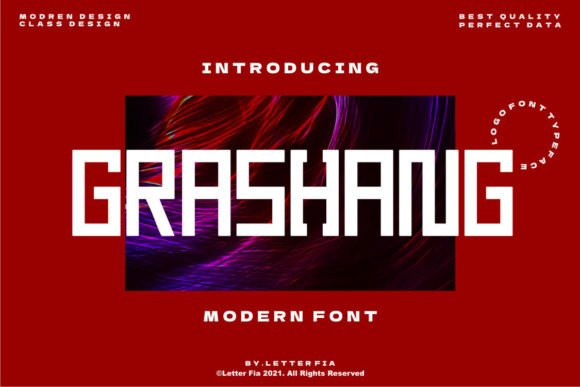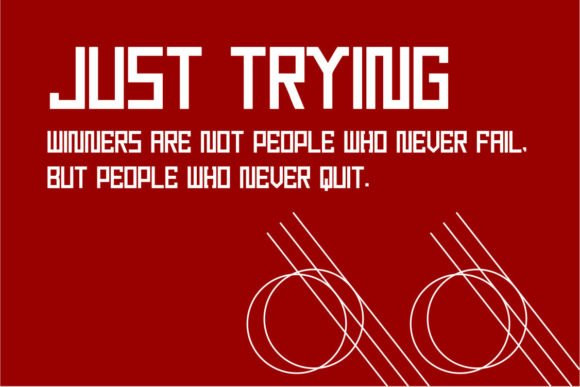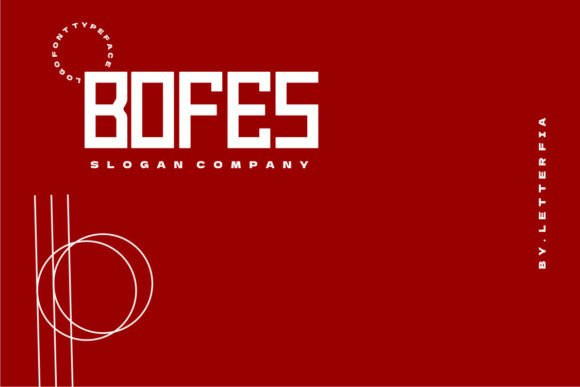
Grashang Font
Grashang is a cool, bold and futuristic display font. This font is ideal for writing web designs, business cards, or pretty much anything else that requires a unique touch.